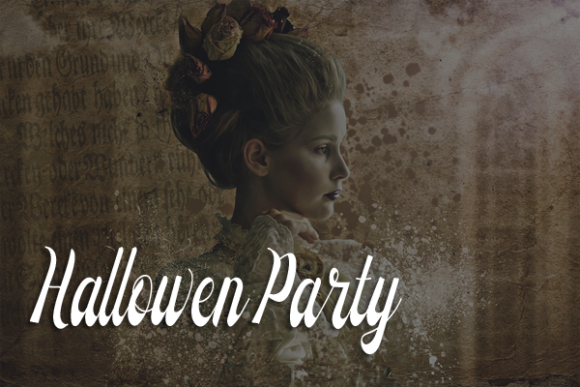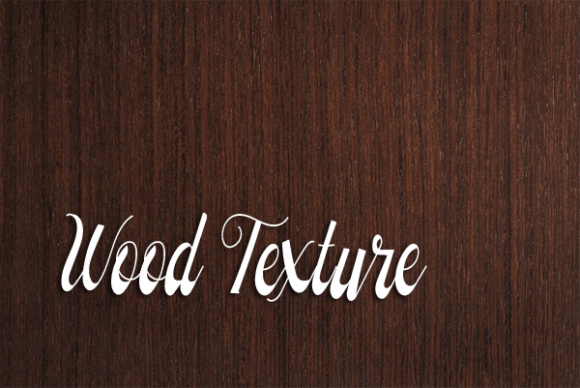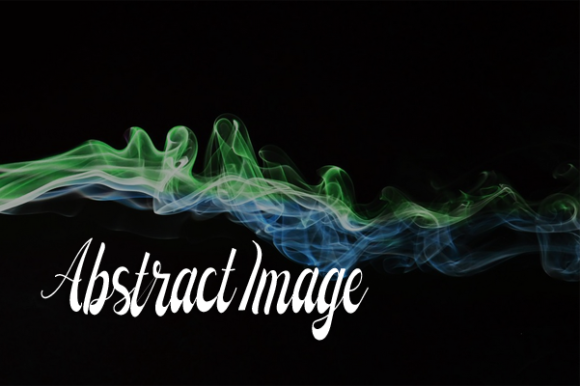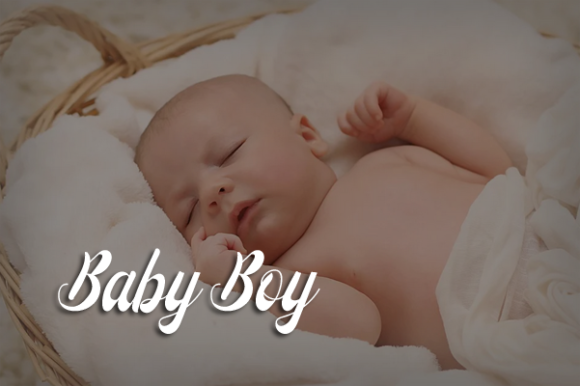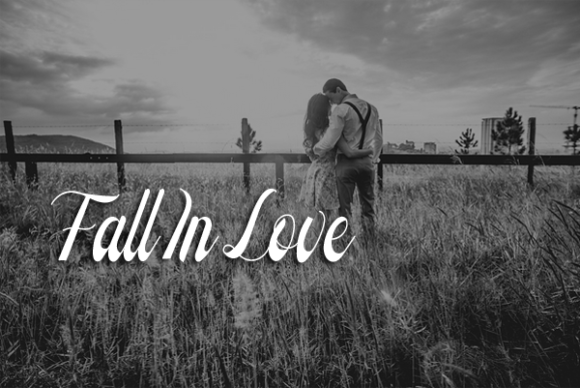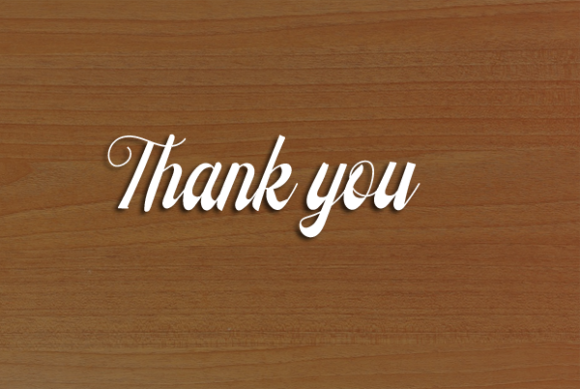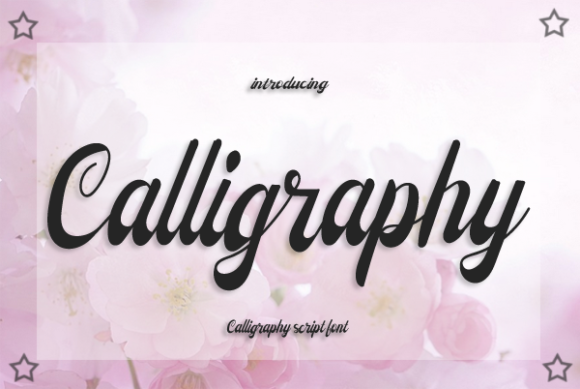
The Beauty of Calligraphy Fonts: Elevate Your Design with Timeless Elegance
Calligraphy is a lovely and timeless handwritten font that has been a favorite among designers and crafters for centuries. Its unique and beautiful touch can instantly elevate your design, making it a popular choice for creating eye-catching logos, branding, and quotes. In this article, we’ll explore the world of calligraphy fonts, their characteristics, and how to use them to add a touch of elegance to your designs.
What is Calligraphy?
Calligraphy is an art form that involves decorative handwriting, often using a brush or a special pen. It’s a technique that requires skill, patience, and practice to master. Calligraphy fonts are inspired by traditional calligraphy, with each letter carefully crafted to showcase its unique character and flair.
Characteristics of Calligraphy Fonts
Calligraphy fonts are known for their distinctive features, which include:
- Flowing connections: Calligraphy fonts often have flowing connections between letters, creating a sense of movement and fluidity.
- Unique letterforms: Each letter in a calligraphy font has its own unique shape and character, making it stand out from other fonts.
- Elegant flourishes: Calligraphy fonts often feature elegant flourishes, which add a touch of sophistication and beauty to the design.
- Handwritten feel: Calligraphy fonts have a warm, handwritten feel that makes them perfect for creating personal and inviting designs.
Why Use Calligraphy Fonts?
Calligraphy fonts are an excellent choice for designers and crafters who want to add a touch of elegance and sophistication to their designs. Here are some reasons why:
- Create eye-catching logos: Calligraphy fonts can help you create stunning logos that stand out from the crowd.
- Enhance branding: Calligraphy fonts can add a touch of personality and whimsy to your branding, making it more memorable and engaging.
- Add elegance to quotes: Calligraphy fonts are perfect for creating beautiful quotes that are both inspiring and visually appealing.
- Perfect for wedding and event designs: Calligraphy fonts are a popular choice for wedding and event designs, as they add a touch of romance and sophistication.
Tips for Using Calligraphy Fonts
Here are some tips for using calligraphy fonts effectively in your designs:
- Choose the right font: With so many calligraphy fonts available, choose one that fits your design style and theme.
- Use it sparingly: Calligraphy fonts can be overwhelming if used excessively. Use them sparingly to create a focal point in your design.
- Experiment with colors and textures: Calligraphy fonts look great with bold colors and textures. Experiment with different combinations to find the one that works best for your design.
- Pair it with simple fonts: Pair calligraphy fonts with simple fonts to create a beautiful contrast and make your design more readable.
Calligraphy fonts are a timeless and elegant choice for designers and crafters who want to add a touch of sophistication to their designs. With their unique letterforms, flowing connections, and elegant flourishes, calligraphy fonts can instantly elevate your design and make it more memorable. By following the tips outlined in this article, you can use calligraphy fonts effectively and create stunning designs that showcase your creativity and style.